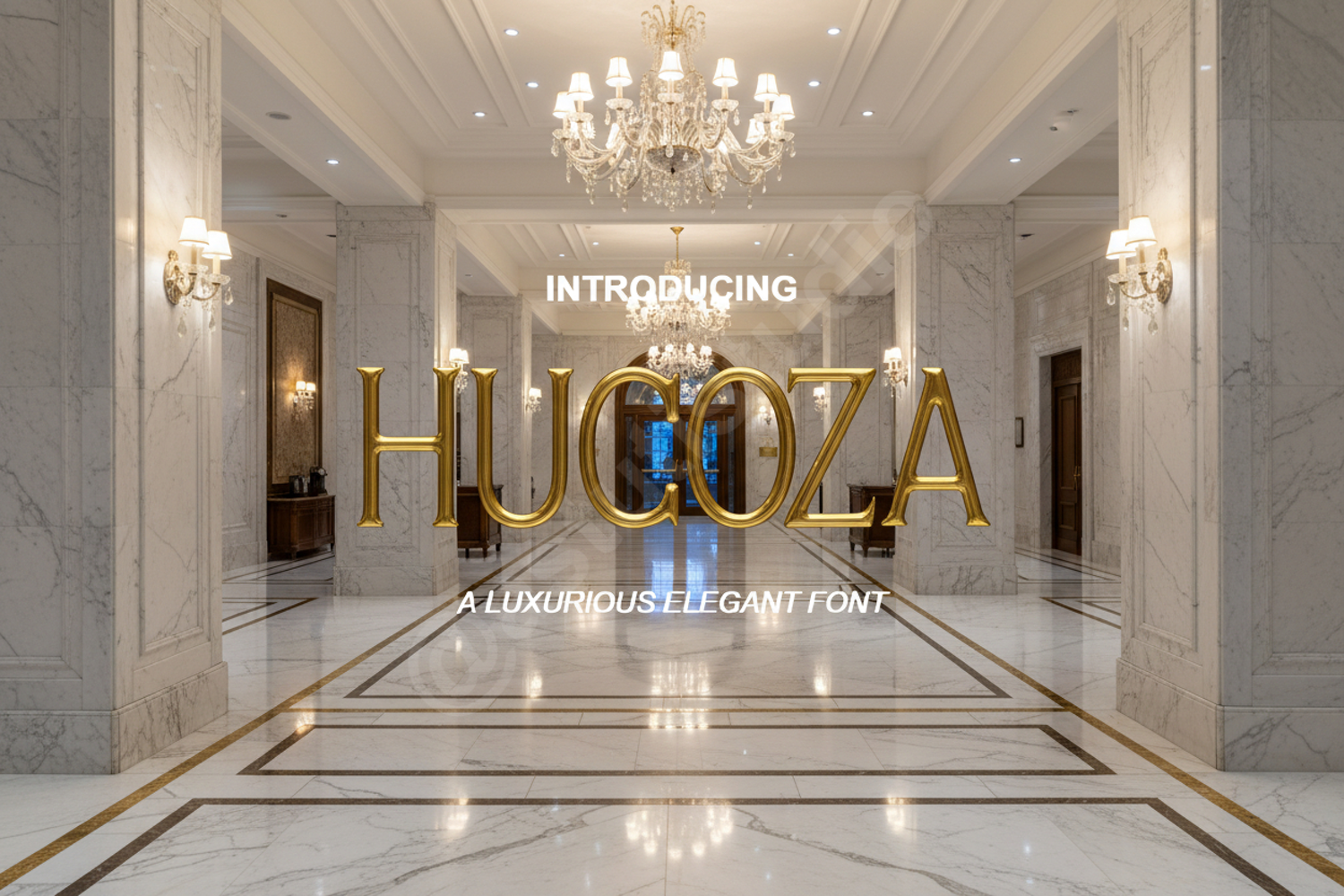
Hucoza - Sophisticated Modern Serif Typeface
Hucoza
Hucoza is a premium serif font that seamlessly blends classic elegance with contemporary flair. Designed with precision and a keen eye for detail, this typeface features clean lines and unique character shapes that command attention. Whether you are crafting a high-end fashion brand or a minimalist corporate identity, Hucoza delivers a professional and polished aesthetic that elevates any creative project.
- Luxury Branding: Create memorable logos and cohesive brand identity systems.
- Editorial Design: Perfect for magazine headlines, body text, and sophisticated layouts.
- Wedding Stationery: Add a touch of class to invitations, menus, and RSVP cards.
- Social Media Branding: Elevate your digital presence with stylish and highly readable typography.
- Product Packaging: Enhance your physical product presentation with a high-end, premium feel.